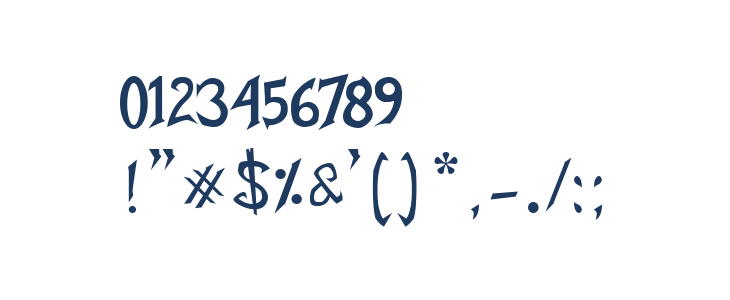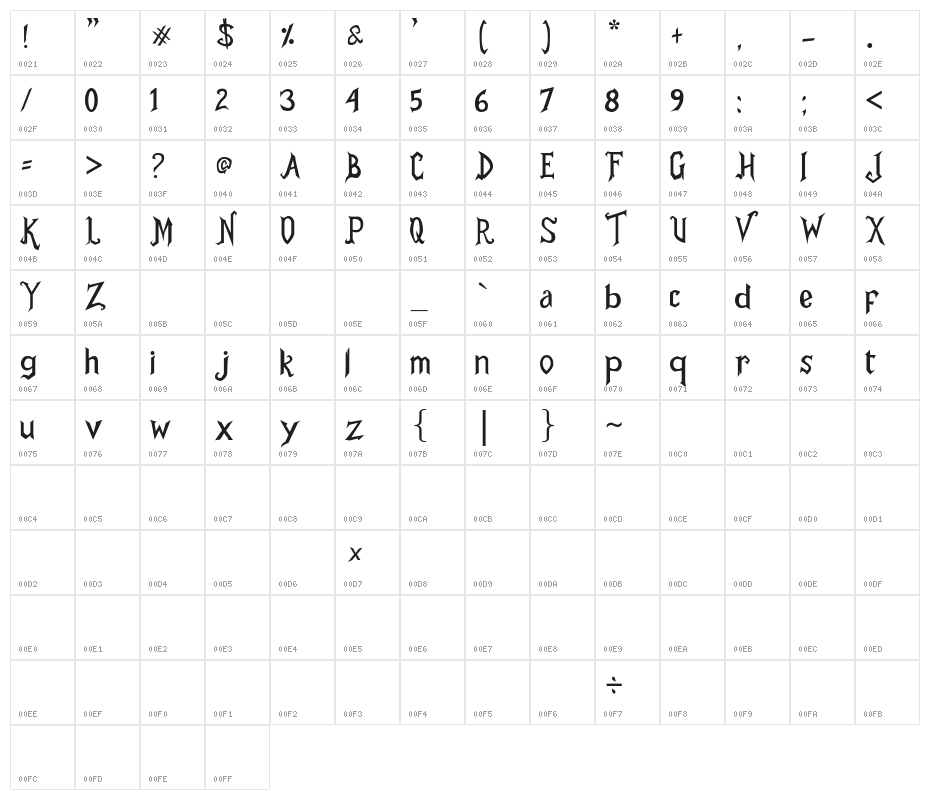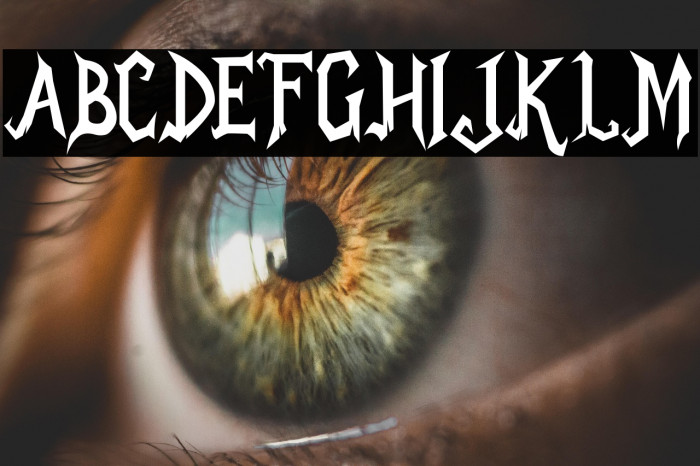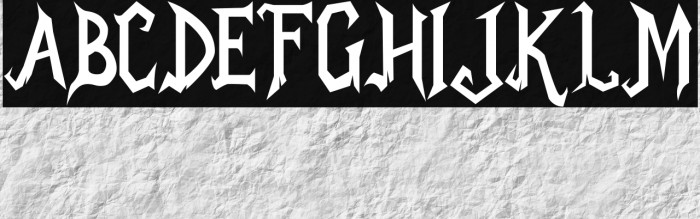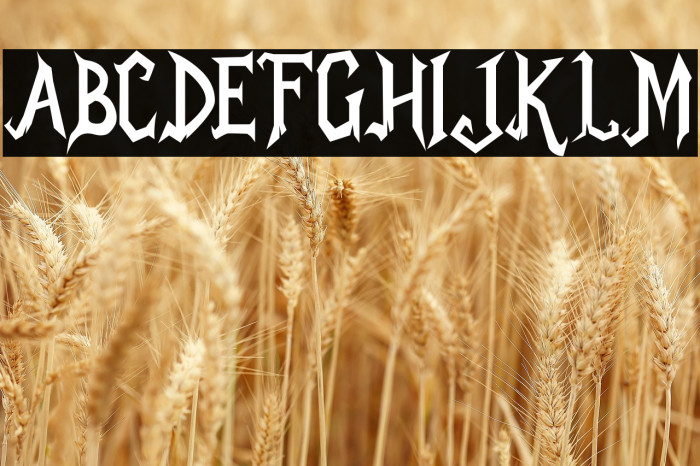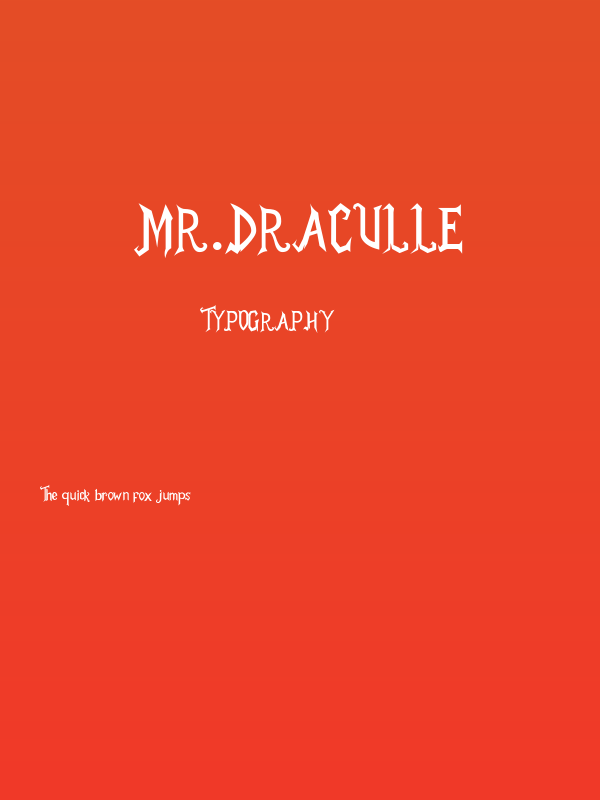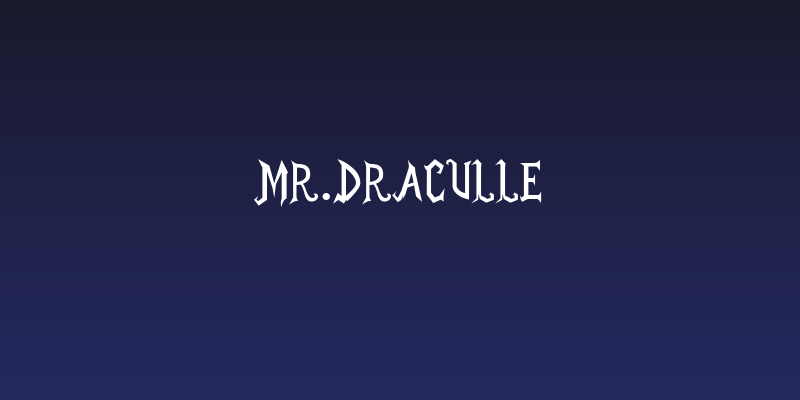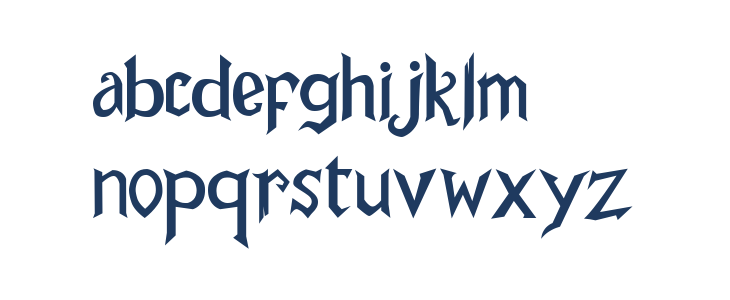
Mr.Draculle Font
Mr.Draculle Description
This font showcases a dramatic and gothic style, characterized by sharp, angular lines and pointed serifs. The uppercase letters are bold and commanding, with a distinct medieval flair that evokes a sense of mystery and intrigue. The lowercase letters maintain the same sharpness, offering a cohesive look across both cases. Numbers and special characters are designed with the same attention to detail, ensuring consistency throughout. This font is ideal for projects that require a touch of the dramatic or a nod to historical themes, such as fantasy novels, horror movie posters, or themed event invitations.
Overall StyleGothic, Dramatic
Proposed ProjectsFantasy novels, horror movie posters, themed event invitations.